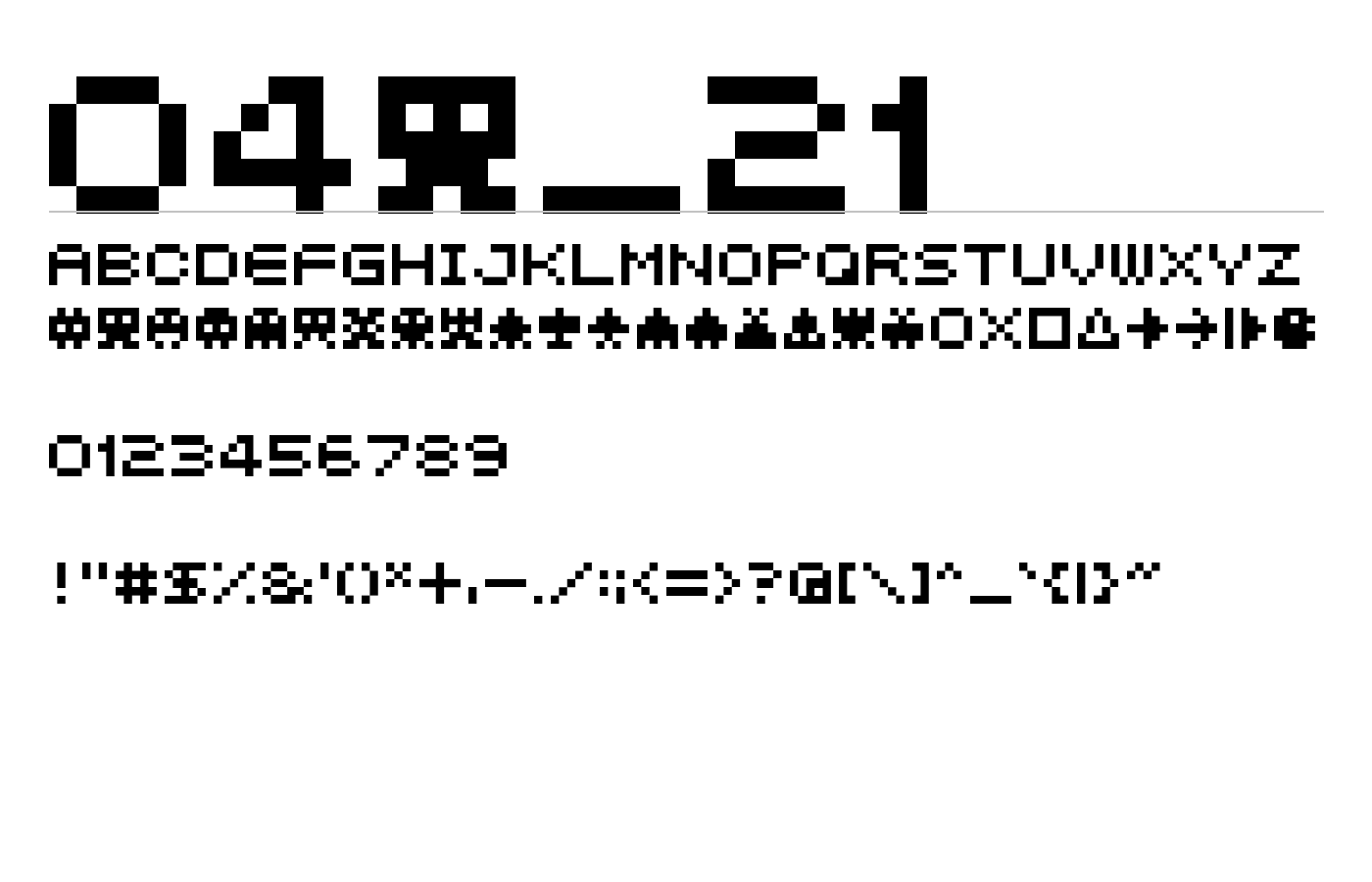
04b_21 is a pixel-style, monospaced sans serif font that offers a distinct retro, digital vibe reminiscent of early computer and arcade text. Its blocky, uniform characters with minimal contrast emphasize clarity and a tech-inspired aesthetic, making it ideal for vintage video game interfaces, coding displays, or designs seeking a nostalgic yet modern pixel-art feel. This font works best for headlines, logos, or digital-themed projects where readability and a bold, playful character are essential.
04b_21 Font